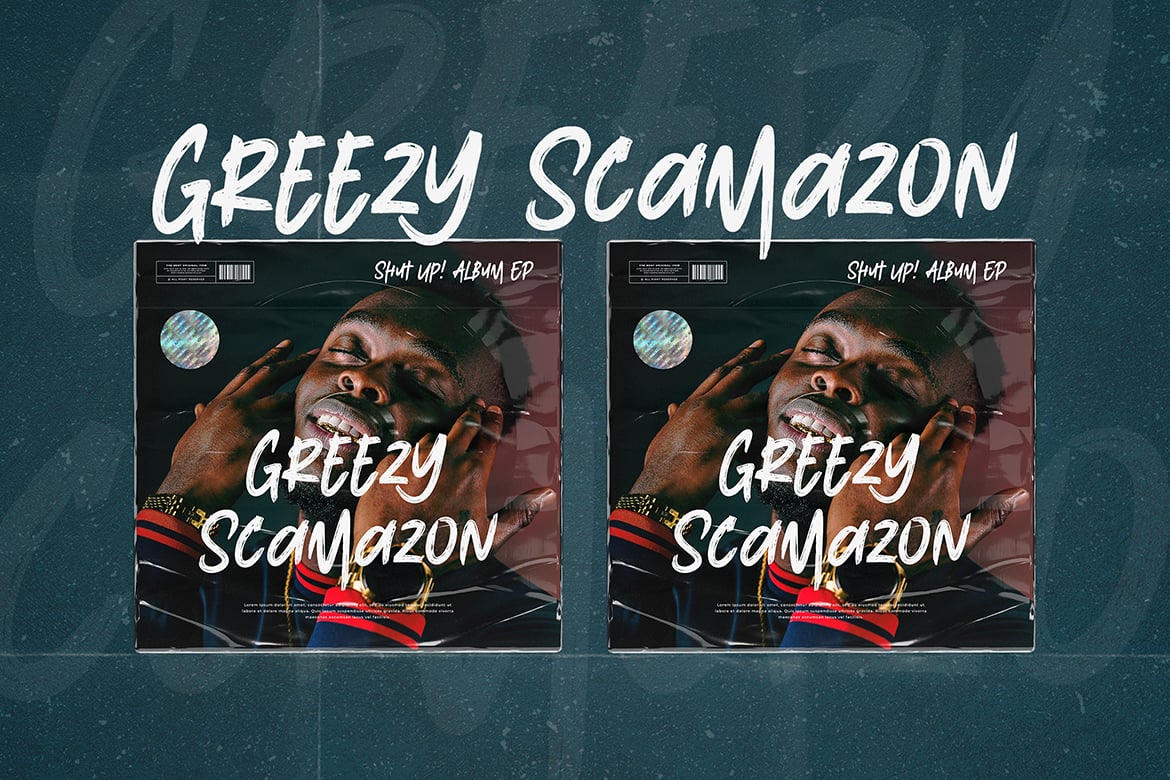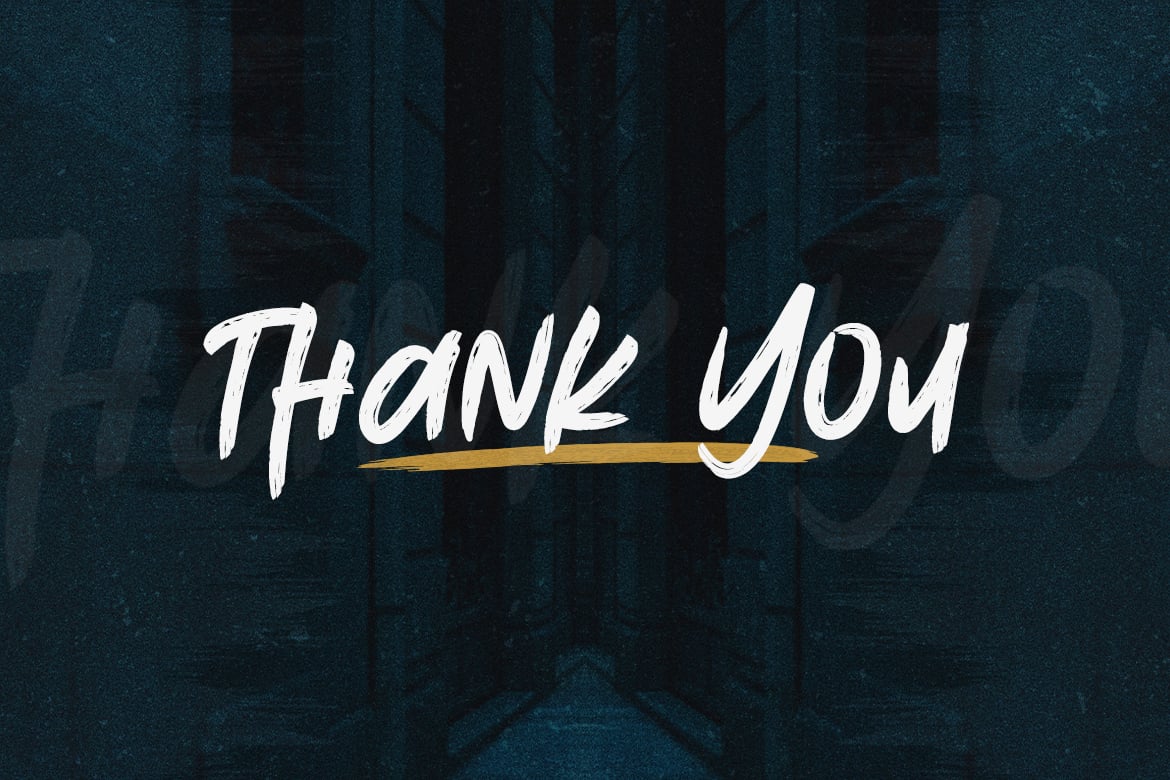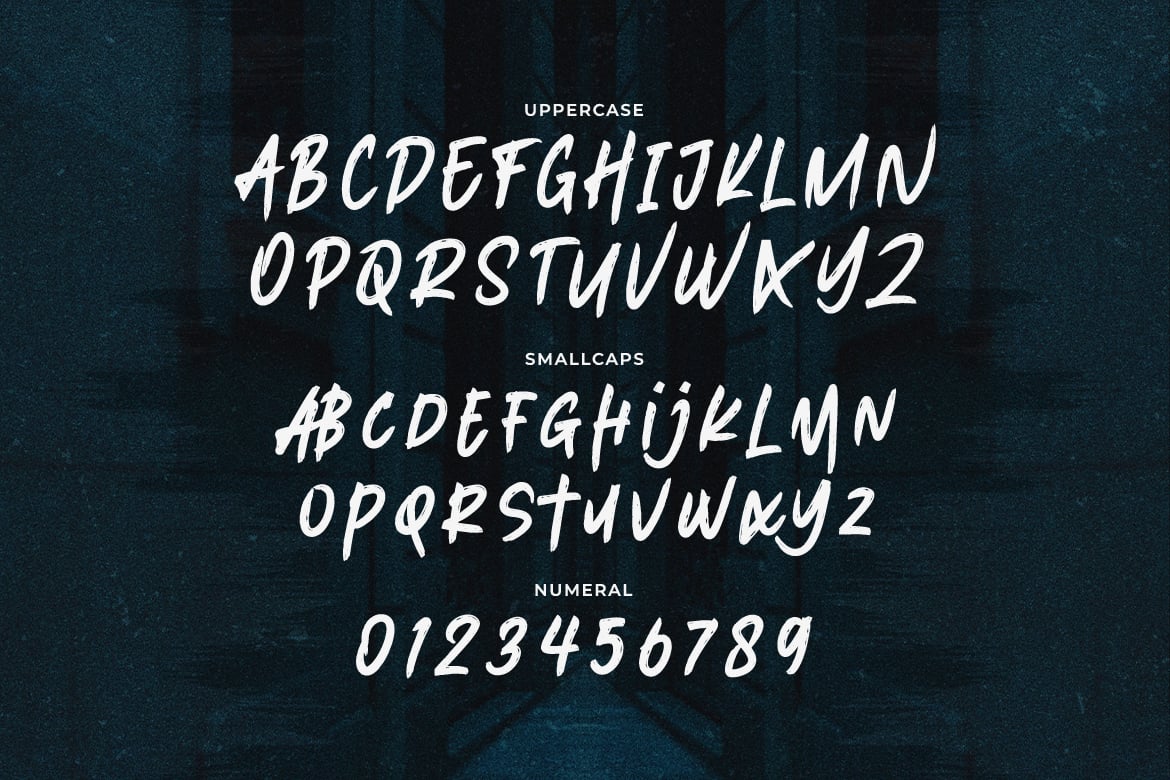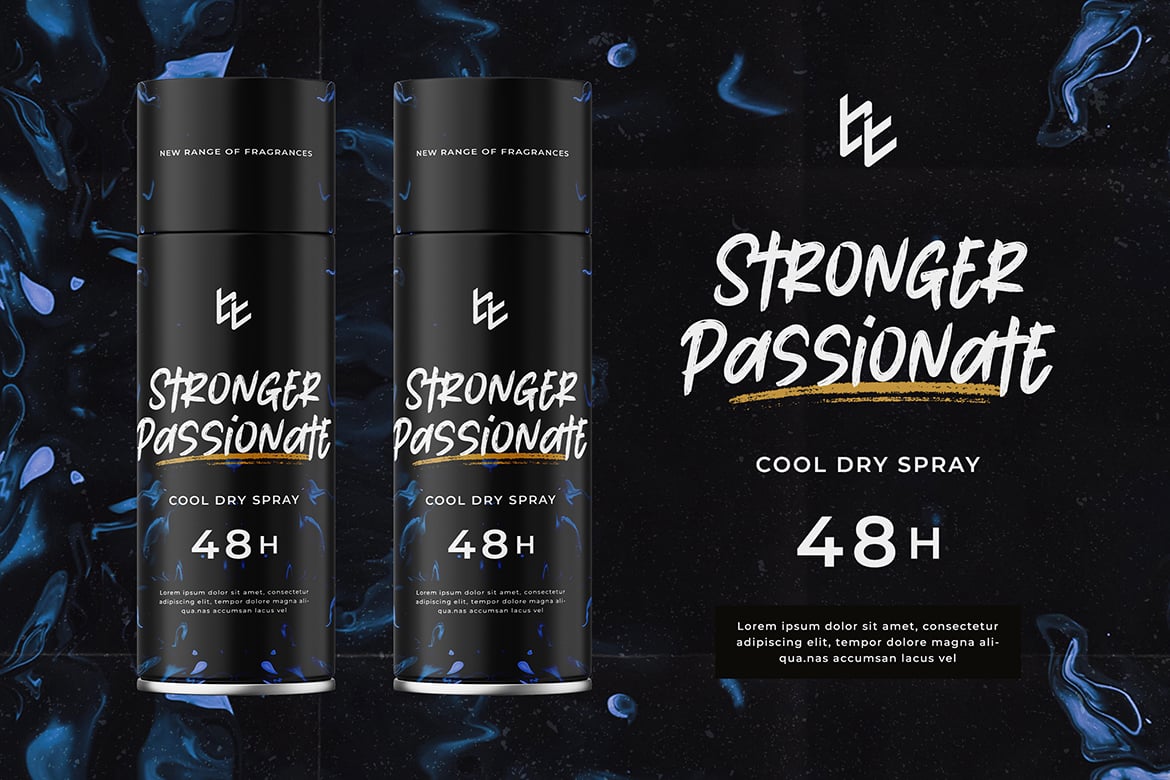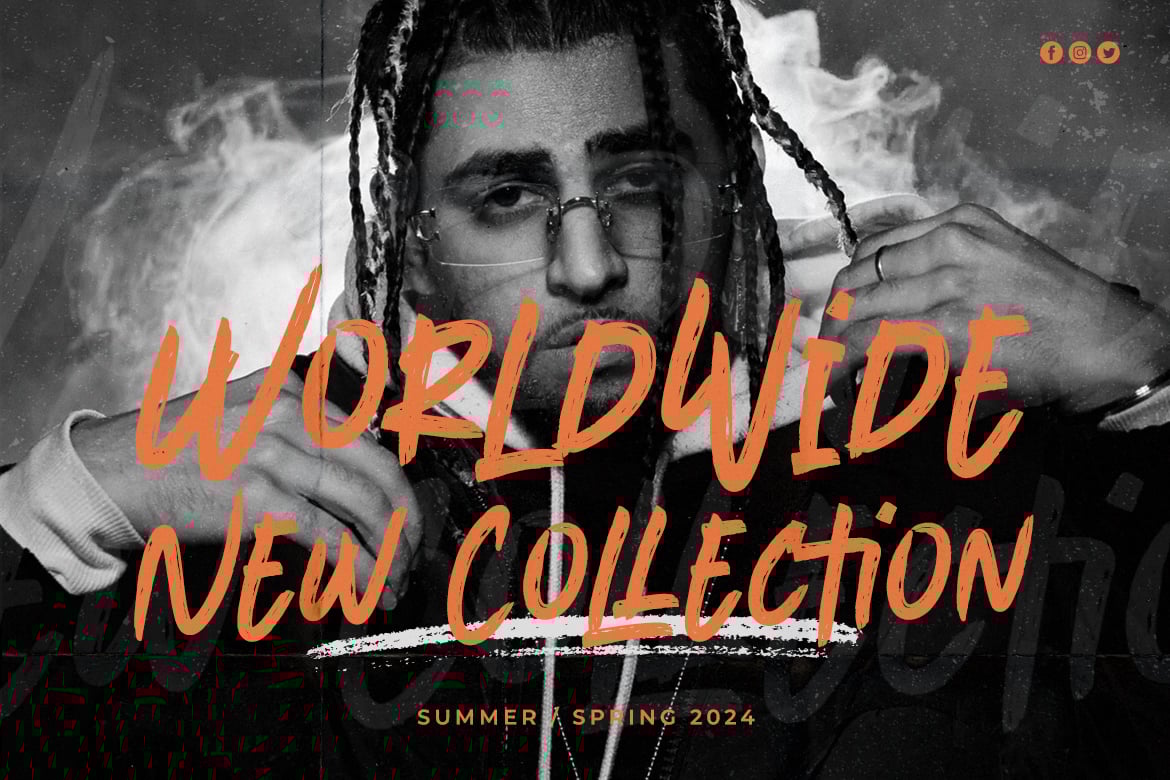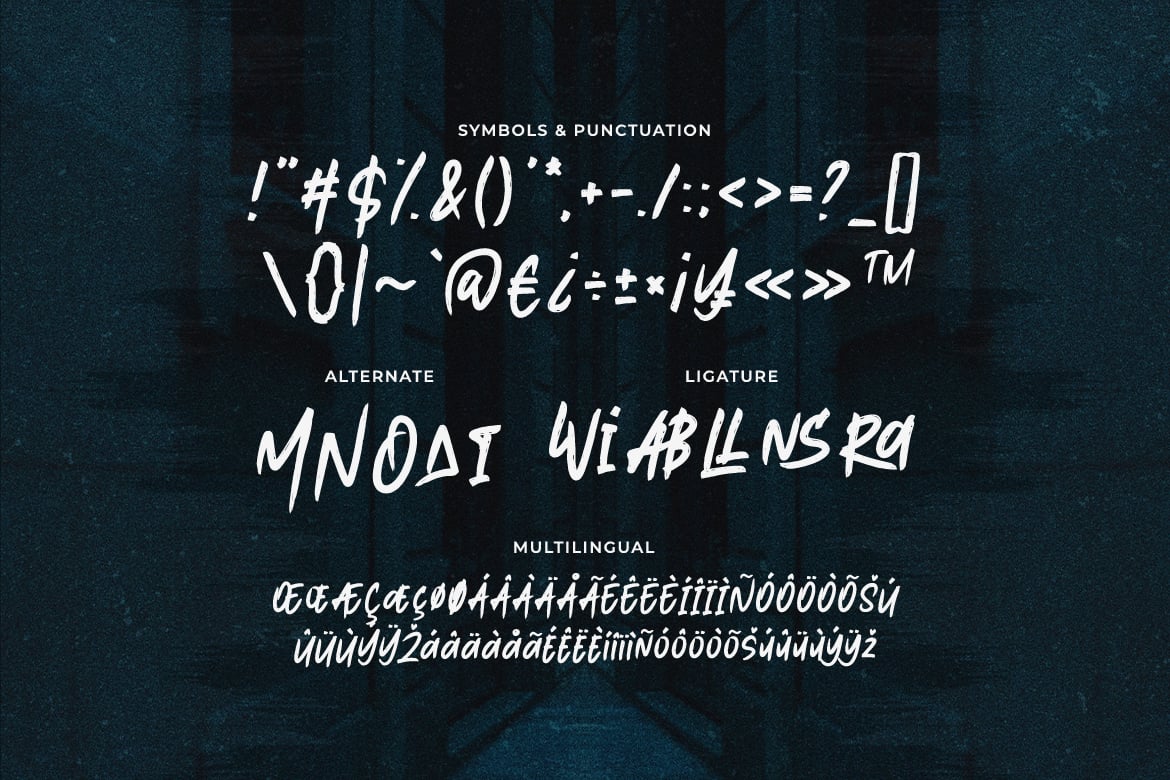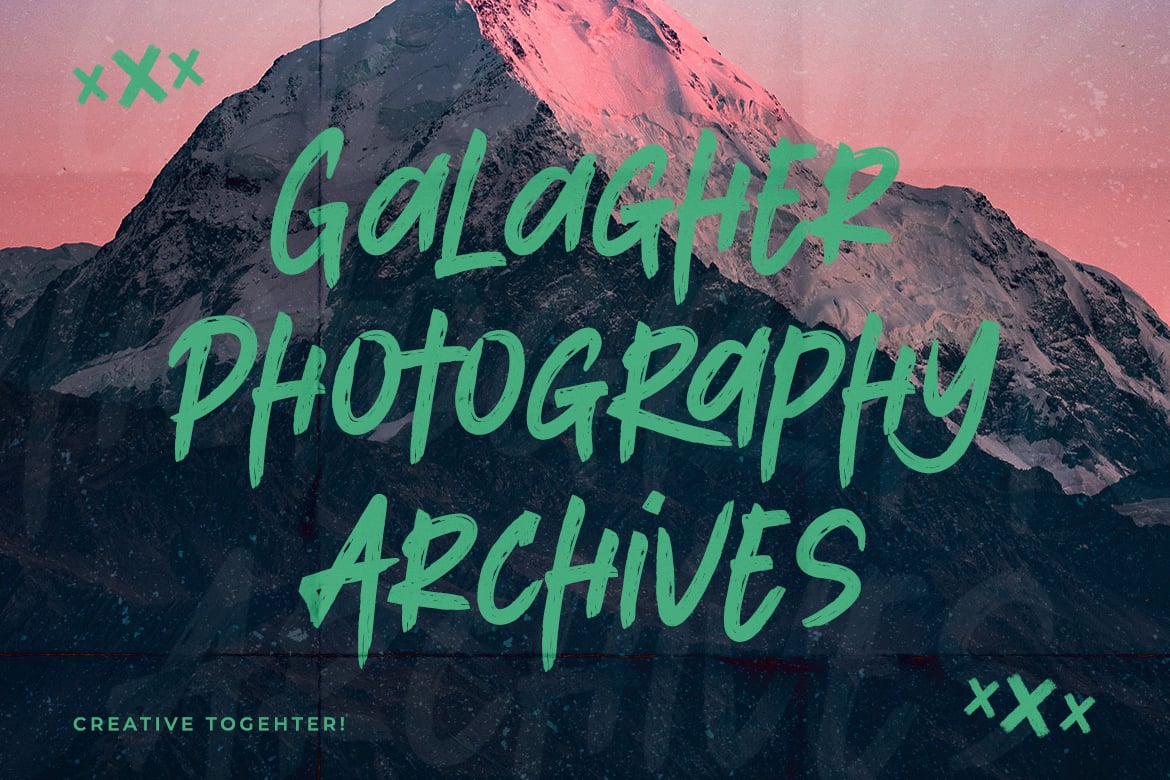
Stickyrans – Rough Brush Typeface
Experience artistic ruggedness with “Stickyrans” – a rough brush typeface that adds an authentic edge to your designs!
With its textured and expressive letterforms, “Stickyrans” captures the essence of raw creativity. Each character is meticulously crafted to showcase a perfect balance of boldness and artistic flair, making it ideal for handcrafted logos, gritty posters, urban branding, and more.
Embrace the organic charm of “Stickyrans” as it effortlessly elevates your designs. Whether you’re creating street art-inspired graphics, rebellious album covers, captivating headlines, or edgy social media content, this typeface will captivate your audience with its rough and expressive style.
Immerse yourself in the world of authenticity and creativity with “Stickyrans” and watch your designs come to life!